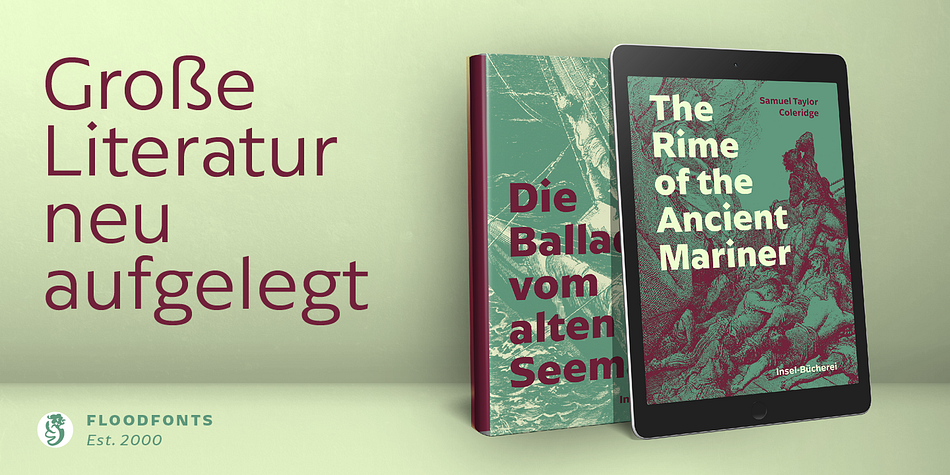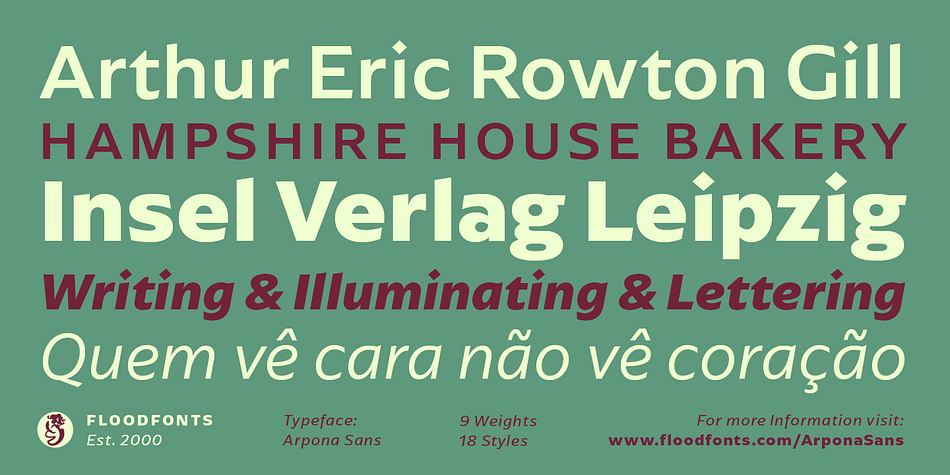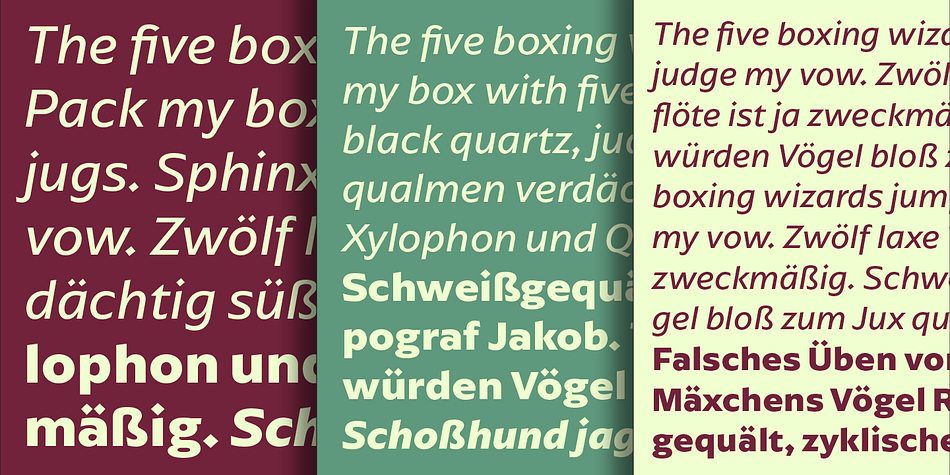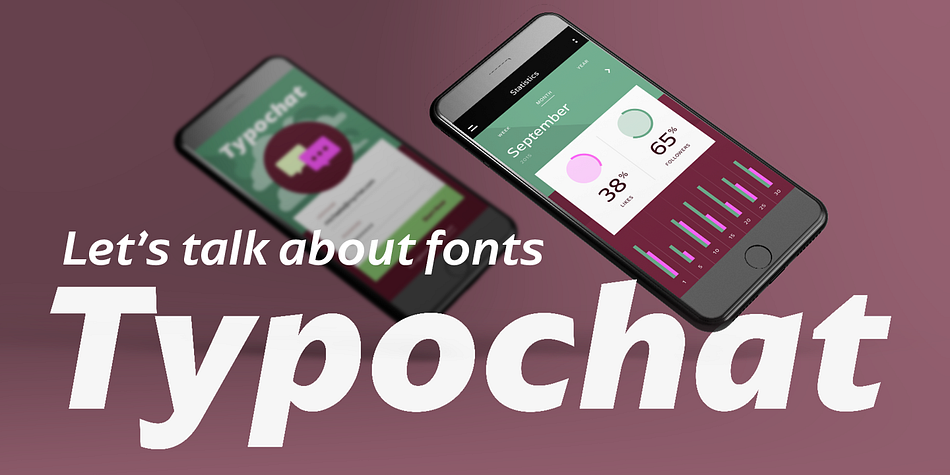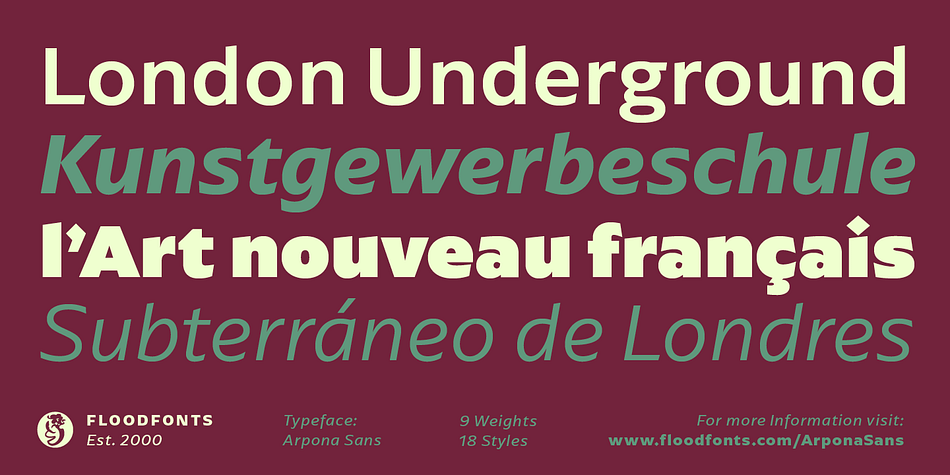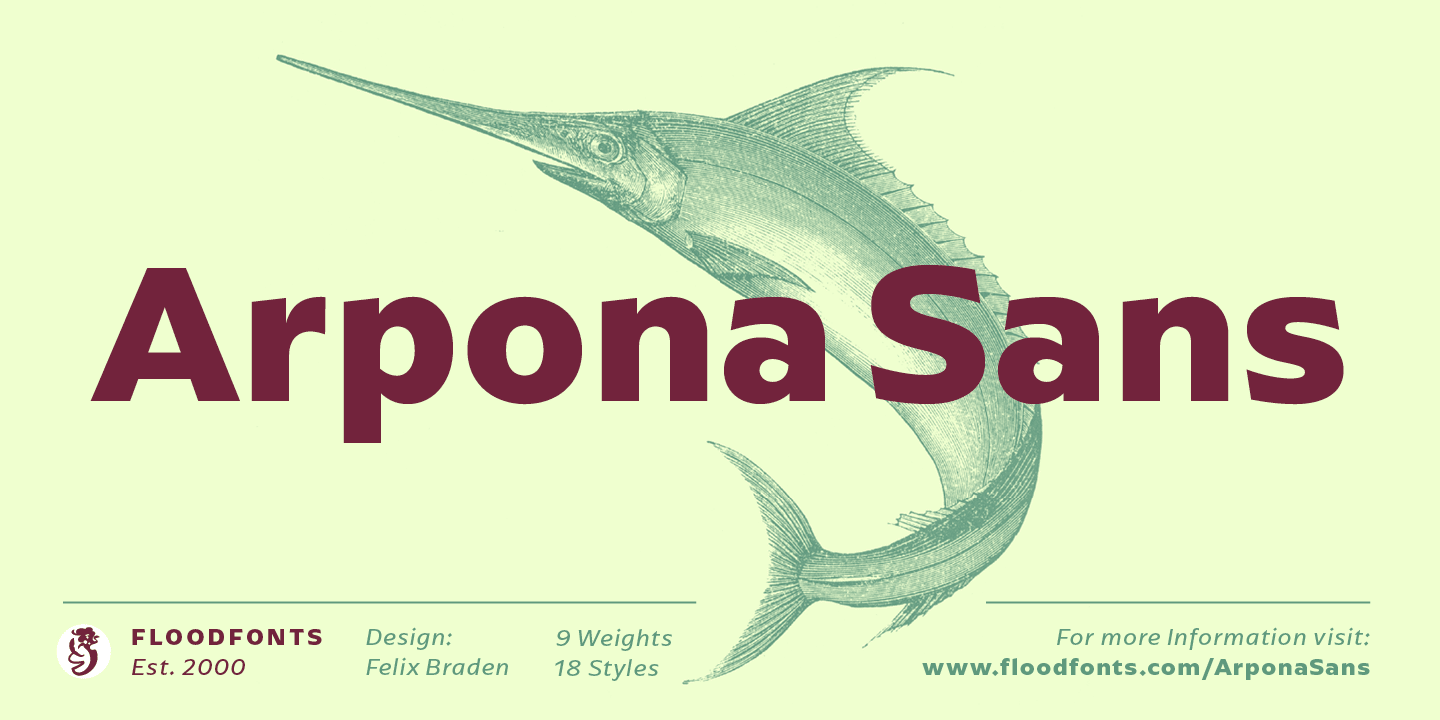
Arpona Sans
Designed by Felix Braden, Arpona Sans is a sans serif font family. This typeface has eighteen styles and was published by Floodfonts.
Arpona Sans combines the esthetics of a geometric Sans with the usefulness of the humanist concept and the calm of the modernist proportions. As well as its serif companion Arpona it is a symbiosis of different design concepts.
Arpona Sans is a contemporary sans serif family inspired by the work of Edward Johnston for London Underground. The familiy is made for anyone who wants a consistent contemporary alternative to Gill Sans.
It conveys that vibe of a friendly, approachable, very British sans-serif but performs excellent in smaller sizes. Arpona Sans is a good choice for editorial design, branding, app design and web design – a poetic workhorse well readable even in running text on screen.
The family has nine weights, ranging from Thin to Black plus corresponding italics. Each style includes 588 glyphs supporting all western-, eastern- and central-european languages including four sets of figures and various currency symbols.